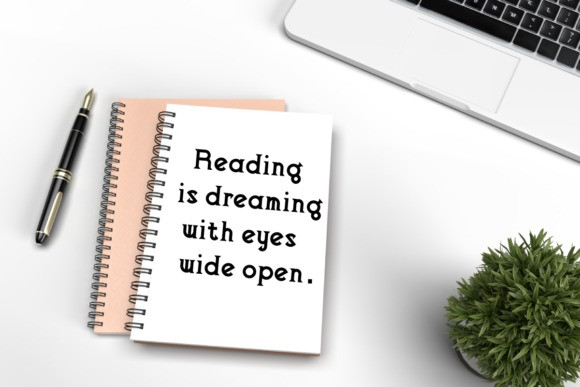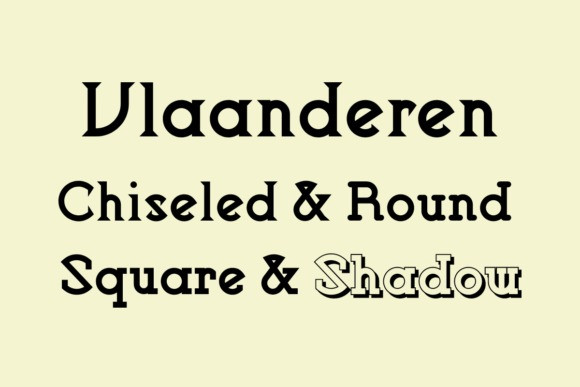
Vlaanderen Font
Vlaanderen is an impressive slab serif font family. A curious combination of medieval and modern letterforms, this font comes in four flavors — Chiseled, Square, Round, and Shadow — each with its unique nuances. Add it to your fonts library and use it for various design projects.